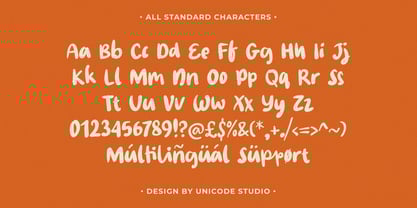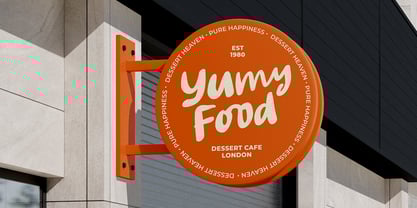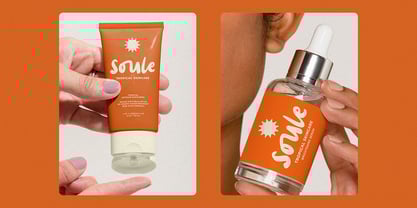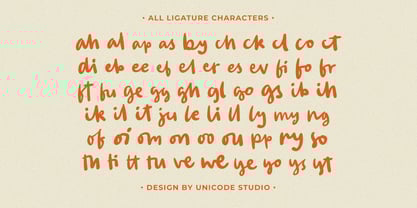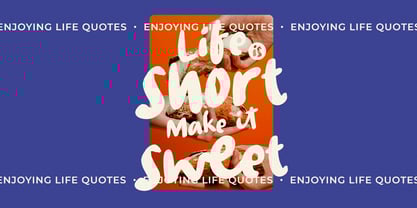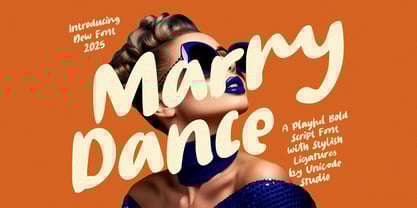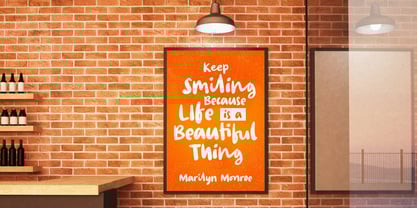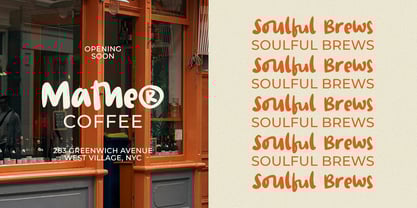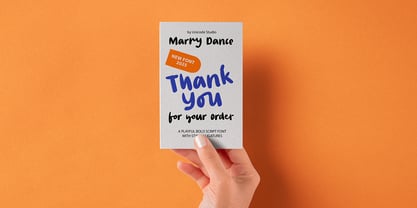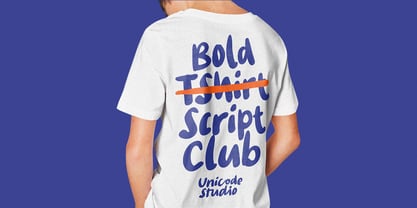
Marry Dance
by Unicode Studio
The Marry Dance Font Family was designed by BOYHAQI . and published by Unicode Studio. Marry Dance contains 1 styles.
Marry Dance is a playful bold script font that brings energy and personality to your designs. With smooth curves, stylish ligatures, and a handcrafted touch, this typeface is perfect for projects that need a fun and modern vibe. Ideal for branding, posters, packaging, invitations, social media graphics, and bold headlines. Marry Dance combines creativity with readability. Its unique character shapes make every word stand out, adding a sense of joy and dynamism to any design.
Designers: BOYHAQI .
Publisher: Unicode Studio
Foundry: Unicode Studio